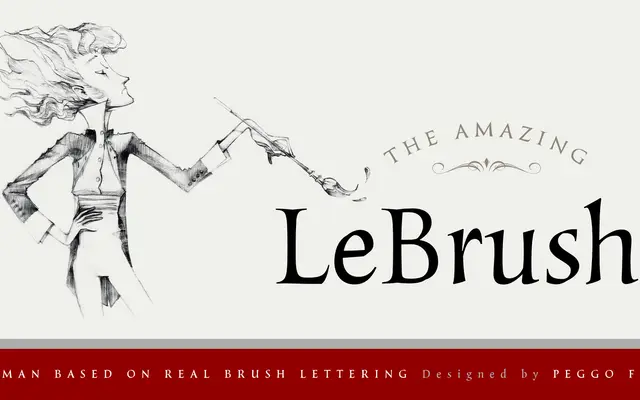
A brush-lettered display roman in ten weights, drawing its proportions from the Capitalis Monumentalis of the Trajan Column for use in titling, posters and book covers.
Built from real brush lettering rather than constructed forms, LeBrush interprets classical Roman monumental proportions through an expressive, hand-drawn lens. Ten weights run from Thin to ExtraDark, with the Classic weight positioned specifically for movie titling, magazine covers and poster work. An extensive OpenType feature set includes standard, discretionary and historical ligatures, swash alternates, stylistic sets and ornamental extras, making it usable in logotypes and labels where detail matters.
Described as a contemporary Roman typeface based on real brush lettering with proportions drawn from Capitalis Monumentalis, placing it firmly in the display category with a brush-drawn serif character.